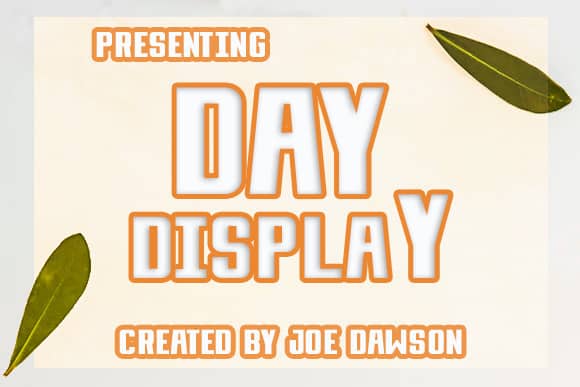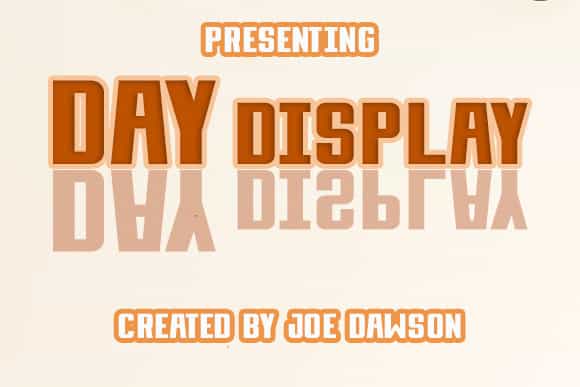
Day Display Font is a unique sans serif with 2 different models, choose the letters you like from large variations to get a different look. This is a very versatile font that works very well in large and small sizes. Made from font designer named Joe Dawson. Day Display is a classic and timeless typeface, perfectly suitable for display purpose such as branding, editorial, headlines, and packaging.
Day Display
Day Display Italic